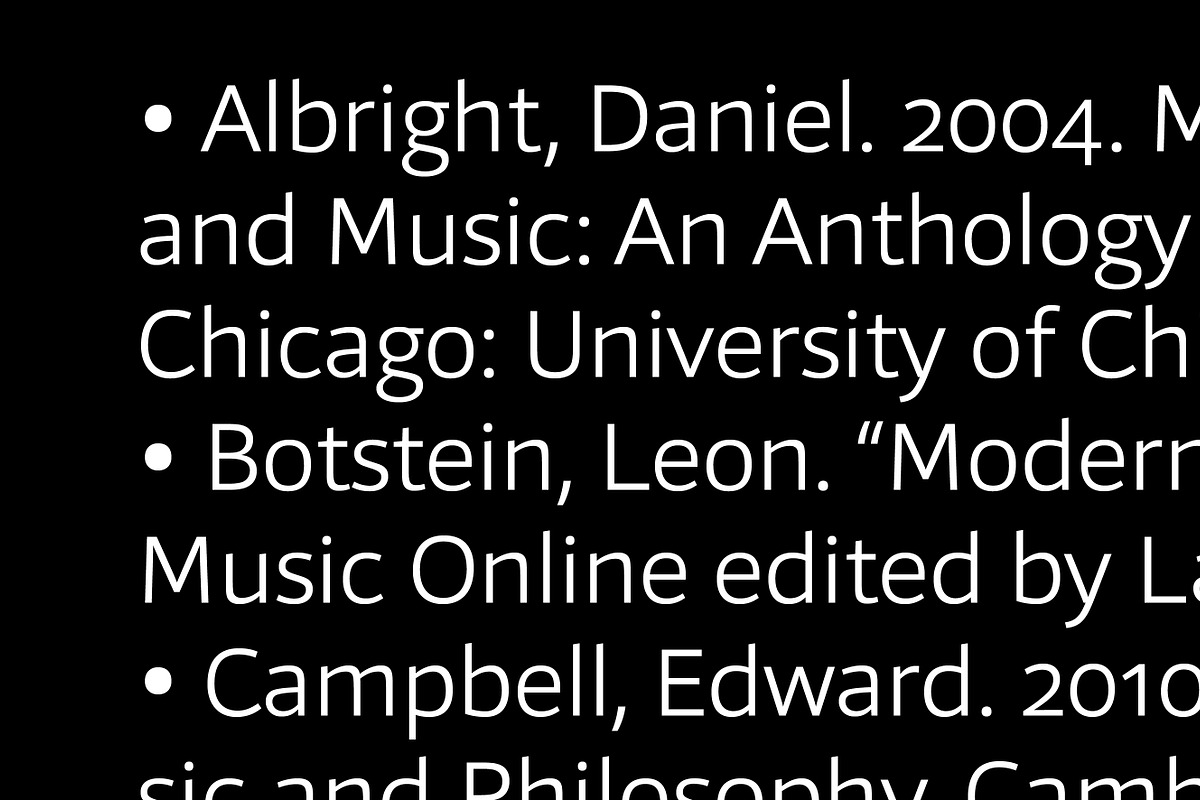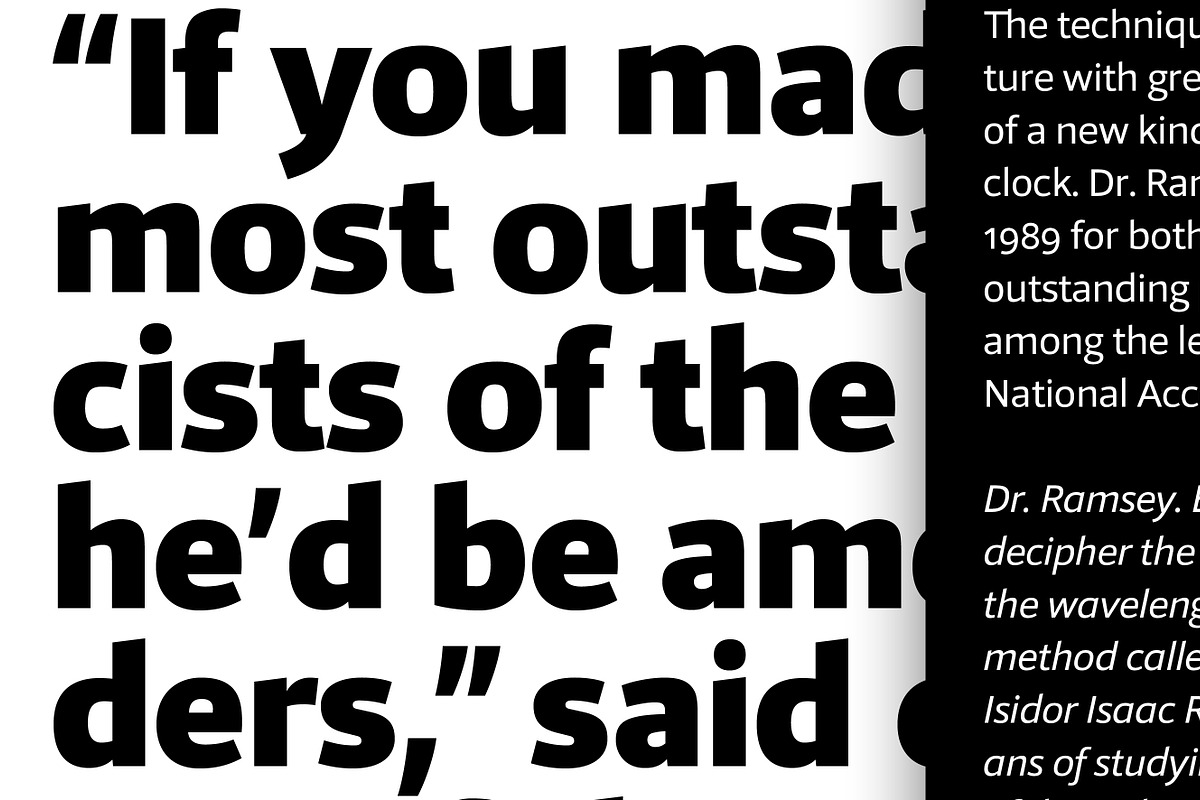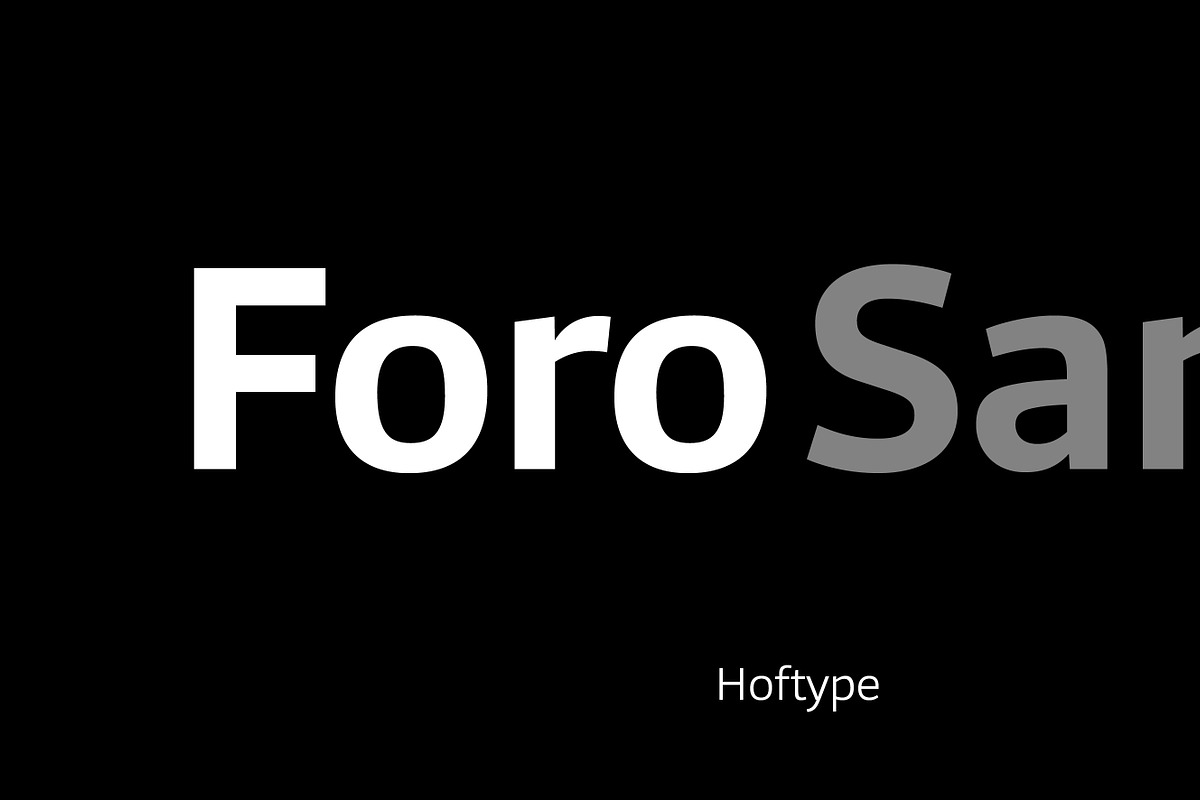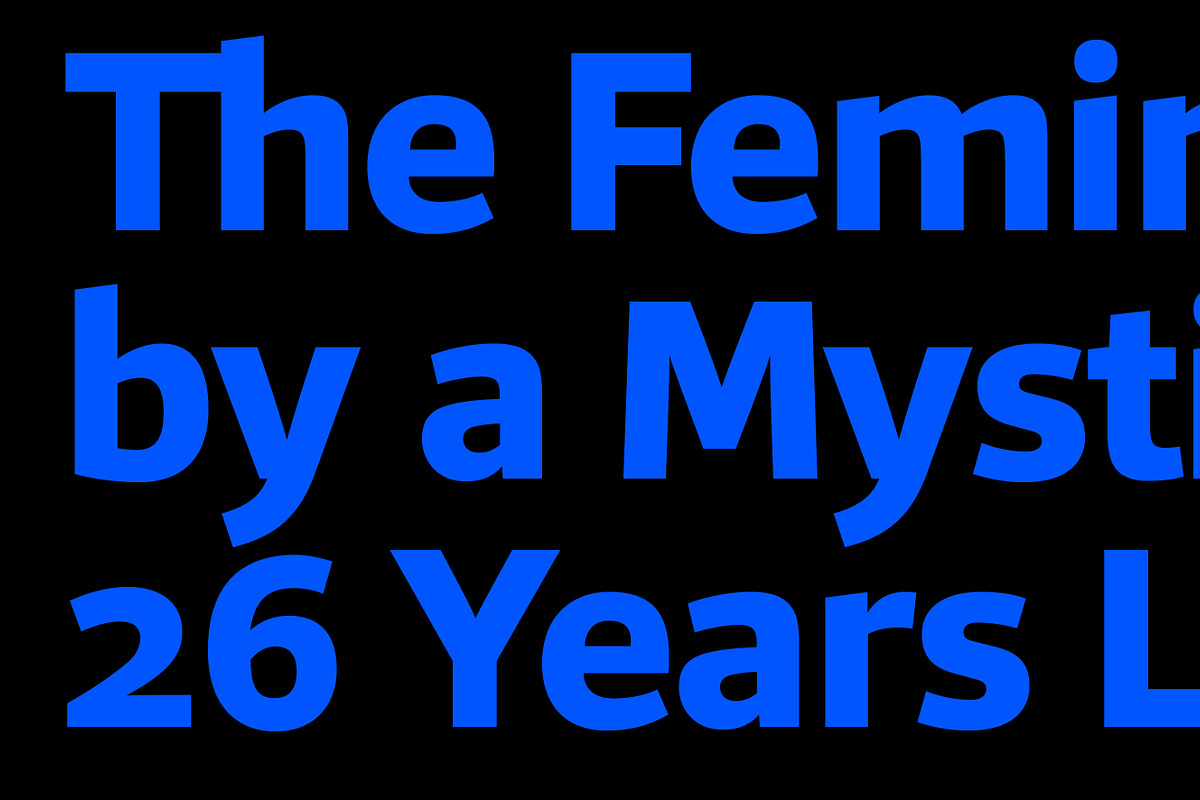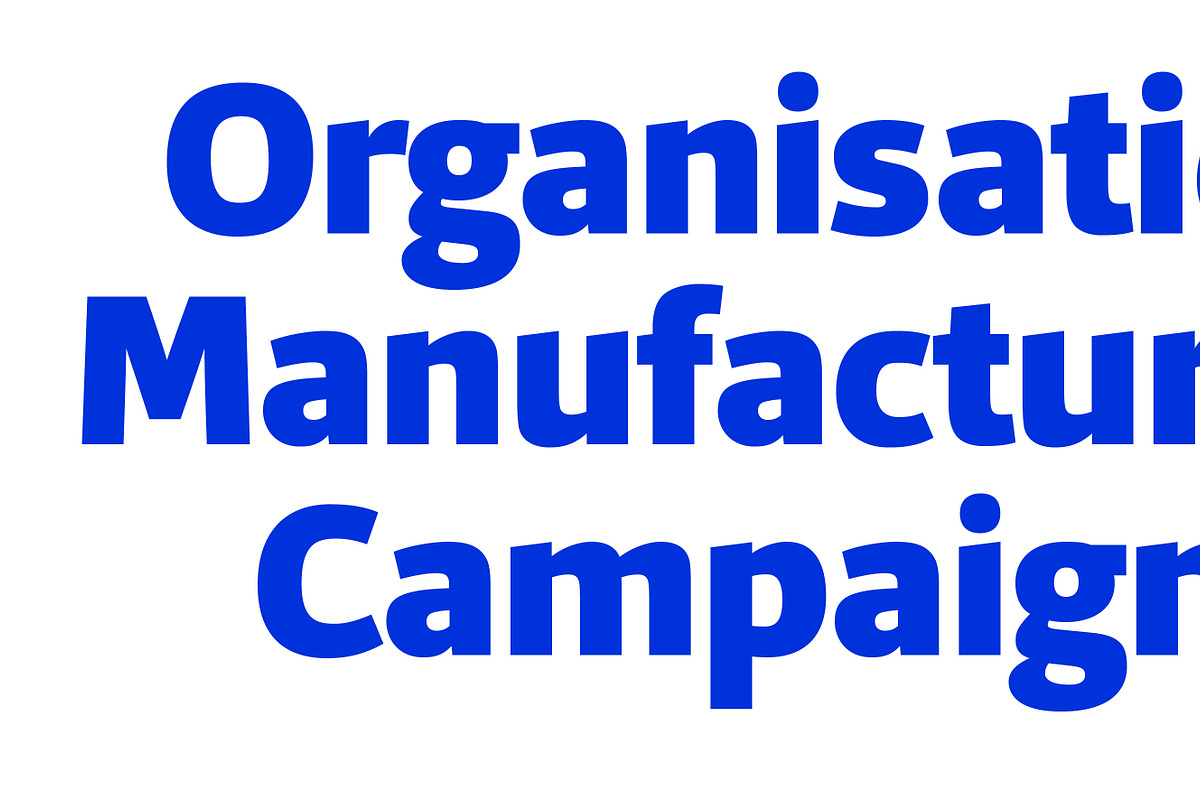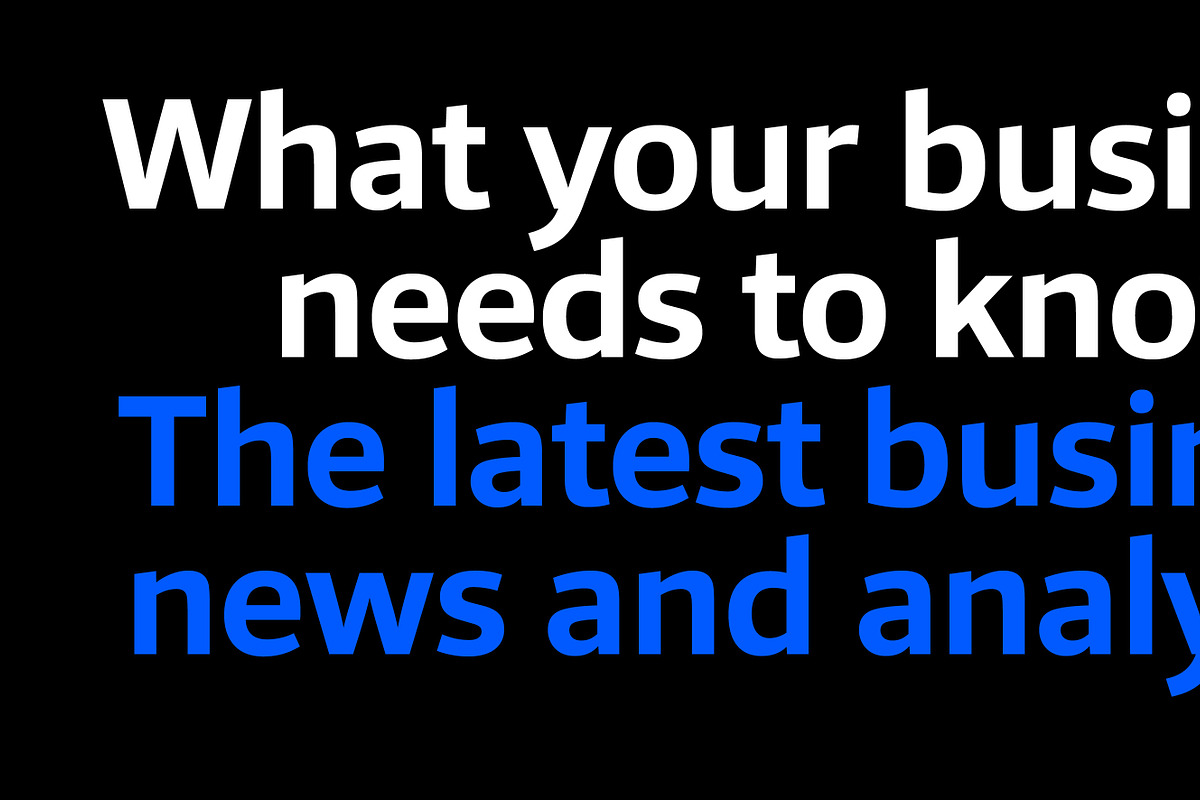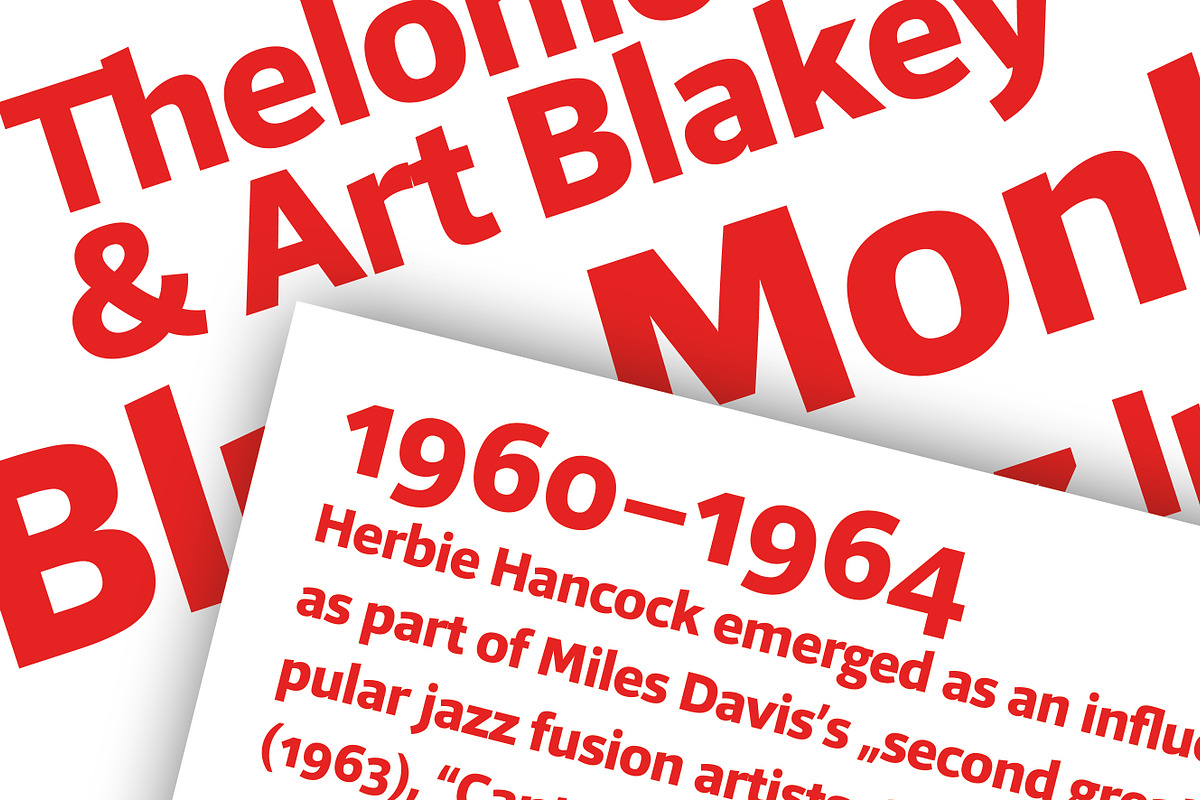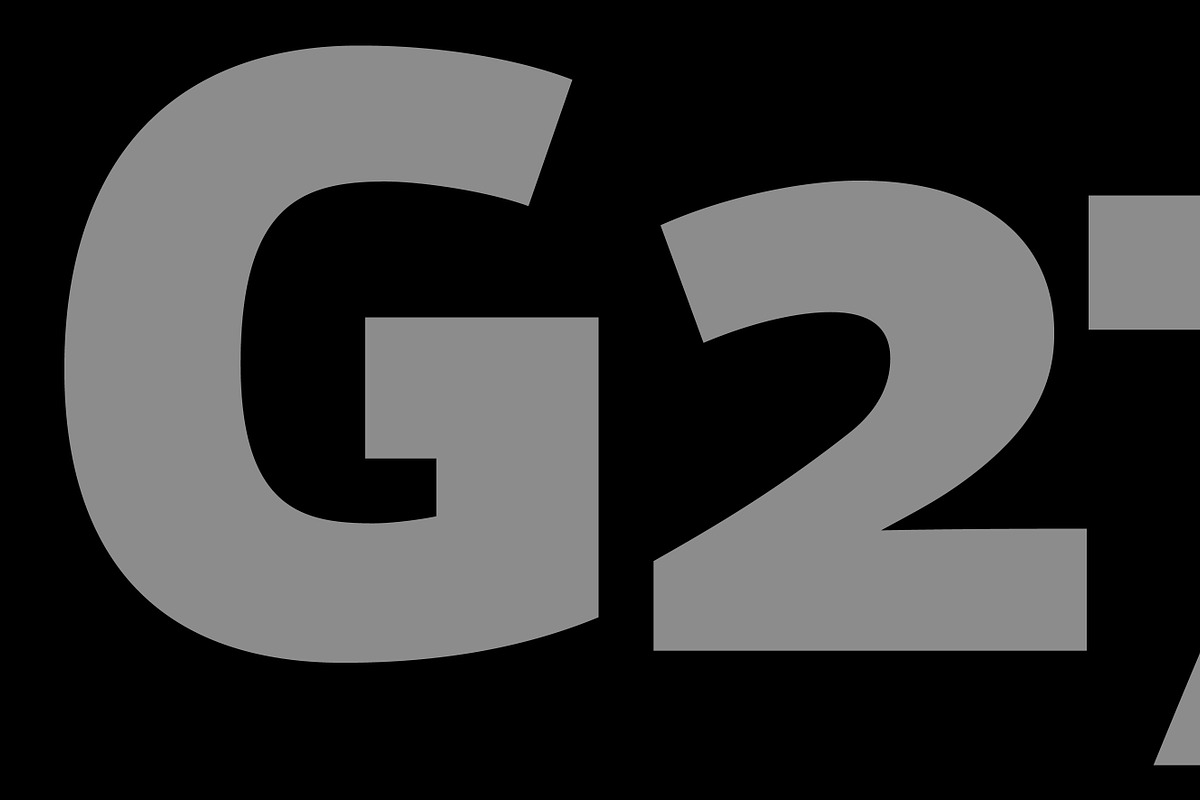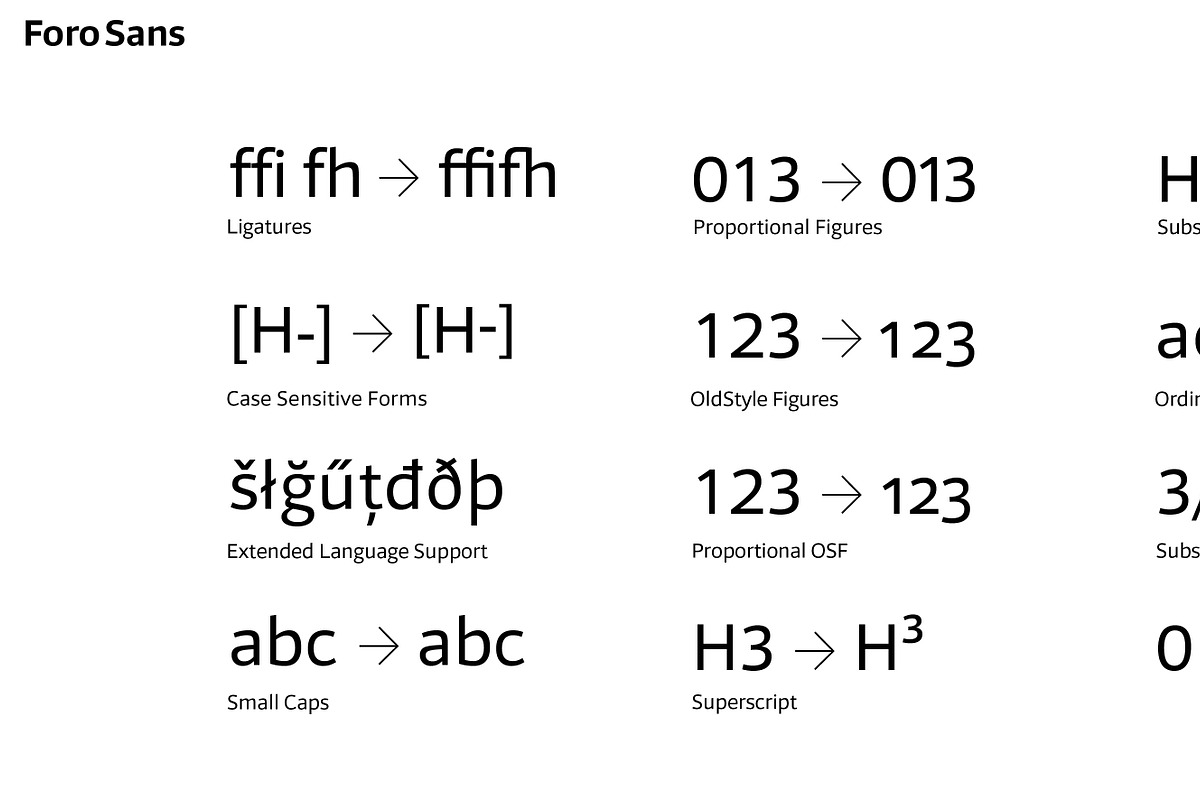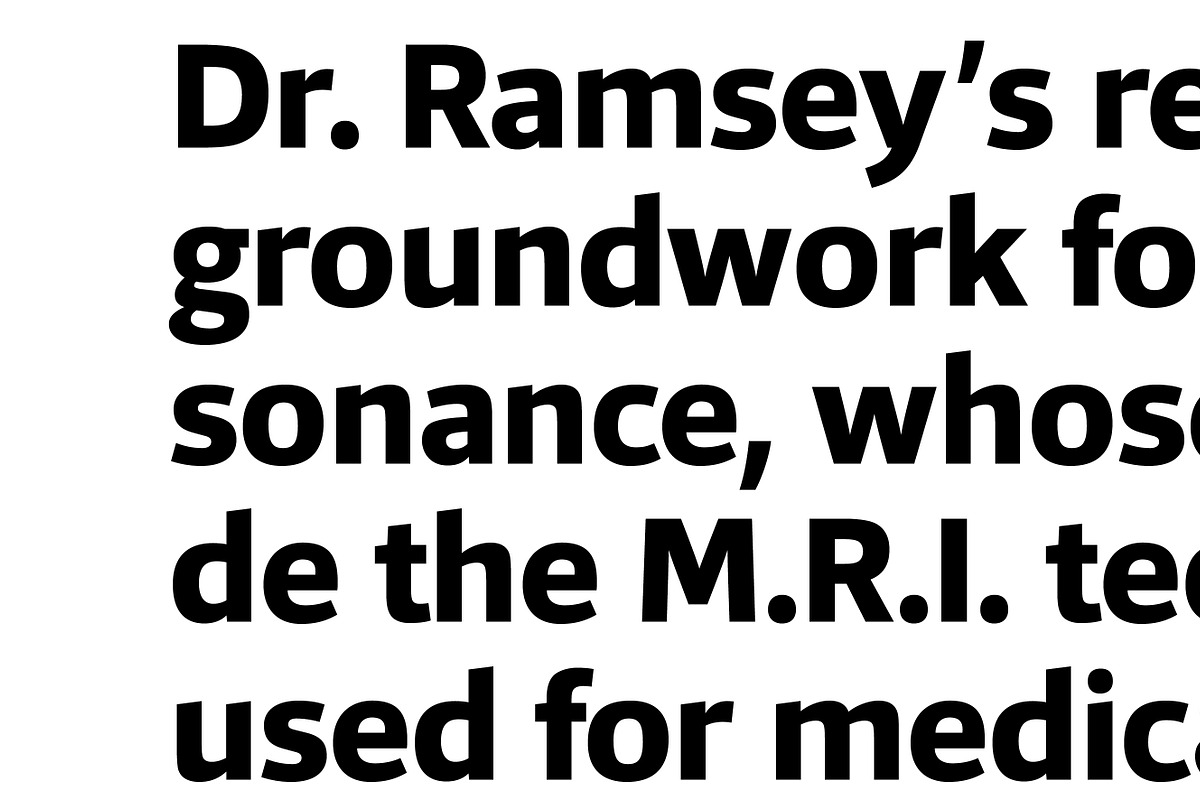
Foro Sans
Foro Sans is a neo-humanist sans serif typeface designed for versatility. It offers 16 styles with features like ligatures, various numerals, currency symbols, and arrows, making it suitable for both body text and branding applications.